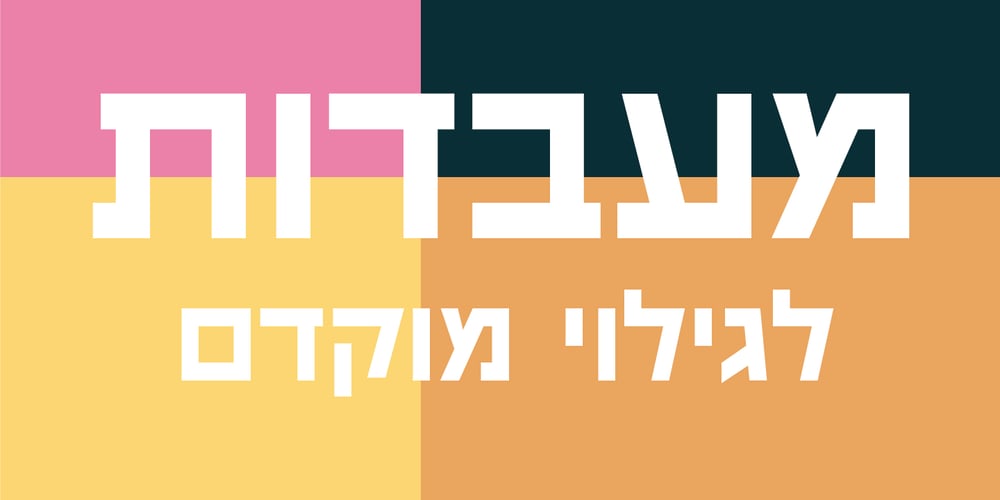
Pigama MF
Pigama MF font
Pigama MF Font Family was designed by Zvika Rosenberg and published by Masterfont. Pigama MF contains 3 styles and family package options. The bold presence is in every weight you choose – for packaging, signage etc.